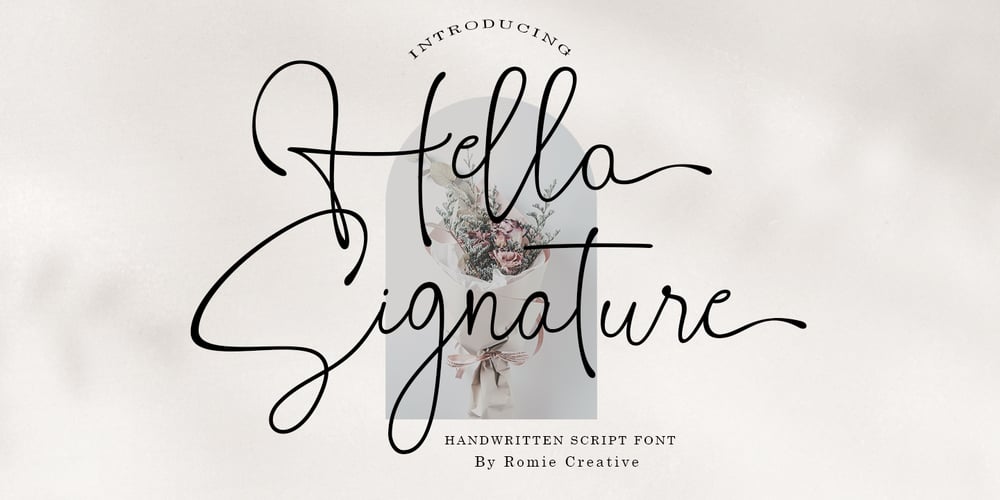
Hello Signature Font Family was designed by Romi Rahmadi and published by Romie Creative. Hello Signature contains 1 styles and family package options. Hello Signature is a handwritten script font, this font is perfect for logos, invitations, stationery, wedding designs, social media posts, advertisements, product packaging, product design, labels, photography, watermarks, special events, or anything else.